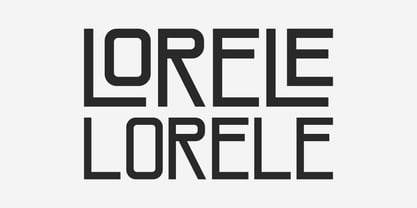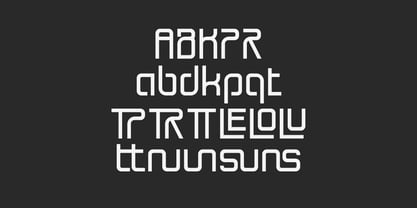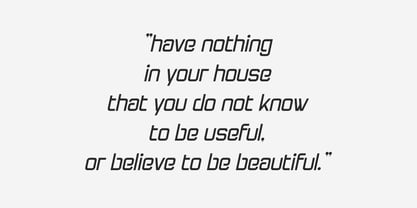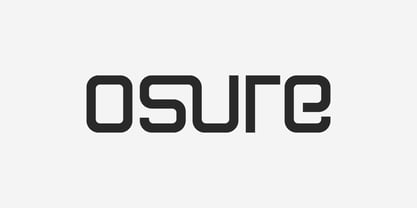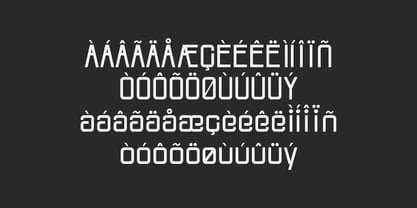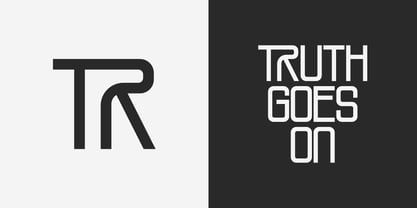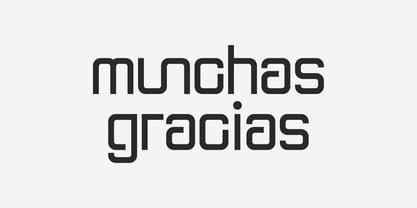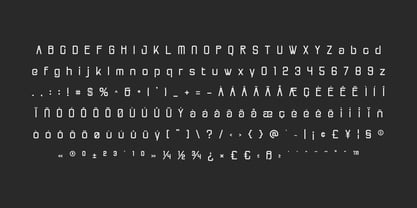
Osure
by Artiveko
The Osure Font Family was designed by Iwan Alwan and published by Artiveko. Osure contains 2 styles and family package options. More about this family
osure is a minimalist, tech-inspired sans serif typeface crafted for clarity, precision, and modern digital aesthetics. Featuring clean lines, balanced proportions, and a sleek geometric structure, osure provides a sharp and professional appearance, perfectly suited for technology-driven design. It excels in UI/UX, apps, websites, dashboards, SaaS platforms, and startup branding, ensuring high readability while maintaining a futuristic and refined visual tone. Its minimalistic approach effectively reduces visual noise, allowing content and interface elements to stand out prominently. osure is an excellent choice for designers focused on digital products, fintech, AI platforms, and contemporary interfaces that demand both functionality and style. More than just a font, osure serves as a minimalist tool for the future of digital design.
Designers: Iwan Alwan
Foundry: Artiveko
Artiveko is a font design team based in Indonesia, comprised of several talented font designers who commenced their careers in the font design industry in 2020. With a dedicated focus on crafting fonts, the team members bring their collective expertise and passion to every project they undertake. Situated in Indonesia, Artiveko draws inspiration from the vibrant cultural landscape of the region, infusing their creations with unique flavors and aesthetics.The team's font collection encompasses a diverse range of styles, including serif, sans serif, handwritten, and script typefaces. Each typeface is meticulously crafted to meet the demands of modern design while offering versatility and functionality across various applications. Whether it's the classic elegance of serif fonts, the contemporary appeal of sans serif designs, the personal touch of handwritten scripts, or the expressive flourishes of script fonts, Artiveko ensures that every font reflects their dedication to quality and innovation.Artiveko's fonts have garnered recognition and acclaim, with their works being featured on prominent social media platforms like Creative Market. Through these platforms, the team has been able to connect with a global audience of designers and typographers, further amplifying their reach and influence in the industry. Their fonts are celebrated for their impeccable craftsmanship, attention to detail, and ability to elevate design projects with style and sophistication.As Artiveko continues to evolve and expand its font collection, the team remains committed to pushing the boundaries of typography and setting new standards of excellence. With a relentless focus on creativity, innovation, and collaboration, Artiveko strives to inspire and empower designers around the world with their distinctive and versatile font designs.